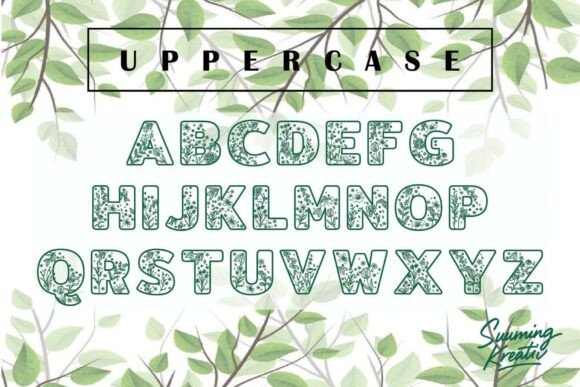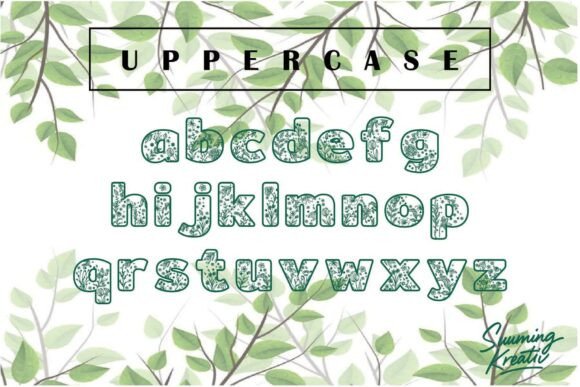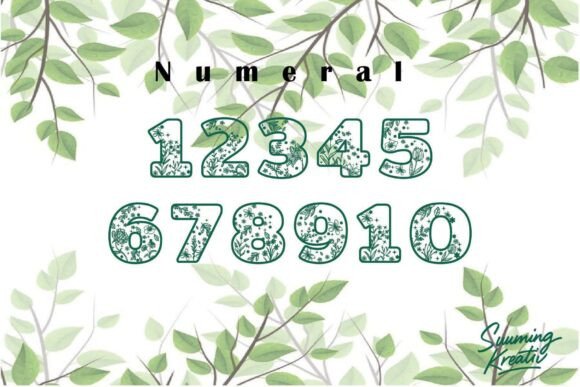
Introduction to Flory Spring Font
Flory Spring is a nature-inspired display font filled with delicate floral details and leafy textures.
Perfect for adding a refreshing and elegant touch to your creative projects This font brings the beauty of springtime to your designs — from invitations and logos to product packaging and digital crafts.
Key Features of Flory Spring Font